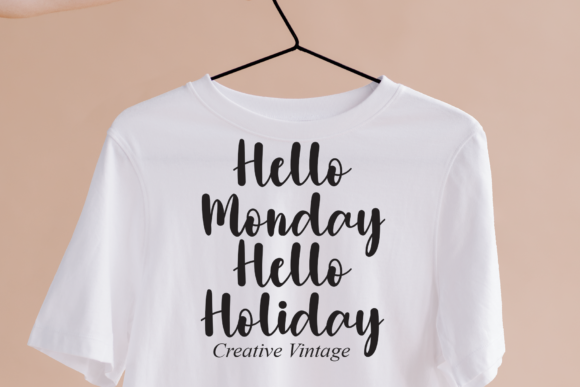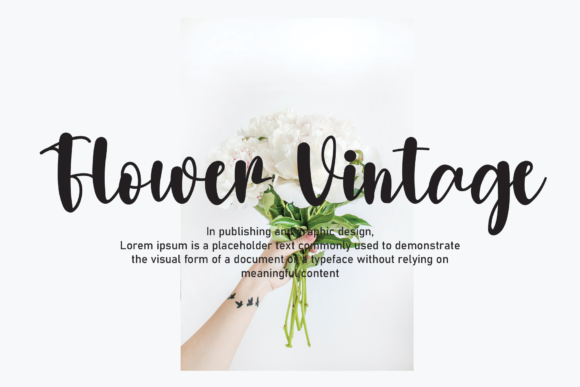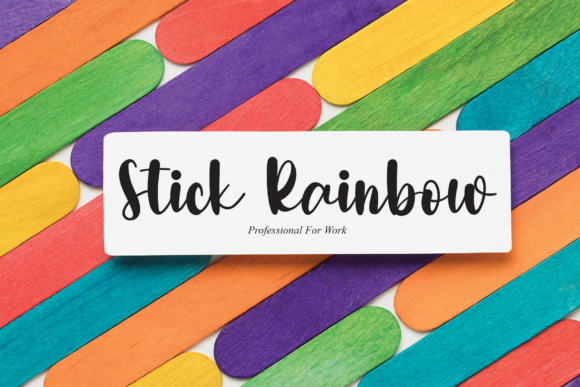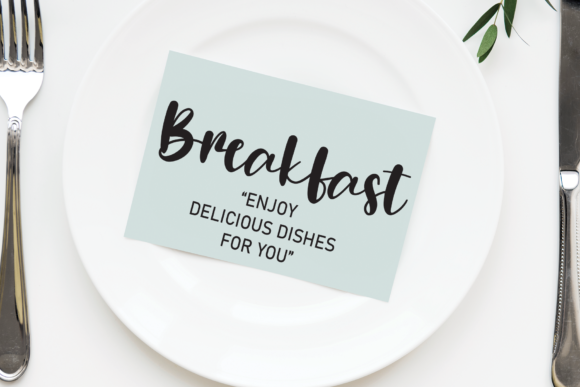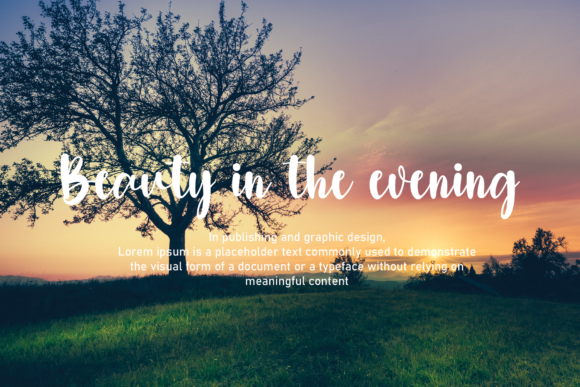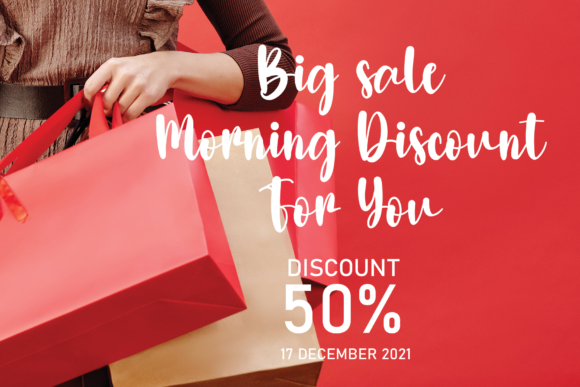
The Beauty of Typography: Introducing the Beautiful Font
In the world of design, typography plays a crucial role in conveying messages, expressing emotions, and creating visual identities. Among the numerous font styles available, script fonts have gained immense popularity for their elegance and sophistication. One such font that has caught the attention of designers and crafters is the Beautiful Font. In this article, we’ll explore the features, benefits, and uses of this stunning font.
What is the Beautiful Font?
The Beautiful Font is a well-balanced and stylish script font that has been designed to make a statement. Characterized by smooth curves and flowing lines, this font exudes elegance and refinement. Its unique design makes it perfect for fashion branding, editorial designs, and any project that requires a touch of sophistication.
Key Features of the Beautiful Font
• Smooth Curves: The Beautiful Font boasts smooth, flowing curves that give it a luxurious feel.
• Well-Balanced: The font’s balanced design ensures that it looks great in various sizes and applications.
• Stylish: The Beautiful Font has a unique style that sets it apart from other script fonts.
• Versatile: This font can be used for a wide range of projects, from fashion branding to editorial designs.
Benefits of Using the Beautiful Font
So, why should you choose the Beautiful Font for your projects? Here are some benefits that make it an excellent choice:
• Enhances Visual Appeal: The Beautiful Font adds a touch of elegance and sophistication to any design, making it more visually appealing.
• Conveys Luxury and Sophistication: The font’s luxurious feel and refined design make it perfect for high-end brands and projects.
• Easy to Read: Despite its elegant design, the Beautiful Font is easy to read, making it suitable for body text and headlines.
• Customizable: The font can be customized to fit your brand’s style, making it a versatile choice for designers.
Uses of the Beautiful Font
The Beautiful Font is a versatile font that can be used in various design projects, including:
• Fashion Branding: The font’s luxurious feel and elegant design make it perfect for fashion brands, logos, and packaging.
• Editorial Designs: The Beautiful Font is suitable for editorial designs, such as magazines, newspapers, and books.
• Advertising: The font’s stylish design makes it an excellent choice for advertising campaigns, including billboards, posters, and flyers.
• Digital Media: The Beautiful Font can be used in digital media, such as websites, social media graphics, and email marketing campaigns.
Tips for Using the Beautiful Font
To get the most out of the Beautiful Font, here are some tips to keep in mind:
• Use it Sparingly: While the Beautiful Font is elegant and sophisticated, using it sparingly will make it more effective.
• Pair it with Other Fonts: The Beautiful Font can be paired with other fonts to create a unique and visually appealing design.
• Experiment with Sizes and Colors: Don’t be afraid to experiment with different sizes and colors to find the perfect combination for your design.
In conclusion, the Beautiful Font is a stunning script font that can elevate your designs to the next level. Its smooth curves, well-balanced design, and stylish appearance make it perfect for fashion branding, editorial designs, and any project that requires a touch of sophistication. With its versatility, customizability, and ease of use, the Beautiful Font is an excellent choice for designers and crafters. So, add it confidently to your projects, and you’ll love the results!